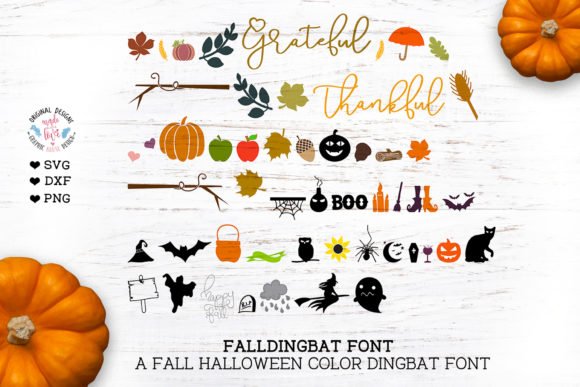
Get Ready to Cast a Spell with Fall Halloween Font
Have you ever stared at a blank canvas, feeling the creative juices flowing, but struggling to bring your ideas to life? That’s where I’ve been lately, trying to come up with the perfect design for our Halloween-themed project. But then, I stumbled upon the perfect solution – Fall Halloween Font.
This incredibly unique and useful dingbats font is a game-changer for designers like us. With its spooky and autumnal vibes, Fall Halloween Font adds an extra layer of depth and personality to our designs. Whether you’re creating a spooky poster, a Halloween-themed social media graphic, or a festive card, this font is sure to make your work stand out.
So, what makes Fall Halloween Font so valuable for designers? Its versatility and ability to evoke a range of emotions, from spooky to playful, make it a must-have in any designer’s toolkit.
Fall Halloween Font Key Features
- Font Style: Script font with a spooky, autumnal theme, perfect for Halloween and fall-themed designs.
- Unique Characteristics: Includes special characters and symbols, such as jack-o’-lanterns, ghosts, and bats, to add a touch of Halloween spirit to designs.
Designer Review: Fall Halloween Font
Overall, I think the Fall Halloween Font has some great elements, but it’s not without its limitations. ✨
- The font’s autumnal and spooky theme is well-executed, capturing the essence of Halloween.
- The use of bold, playful lettering makes it perfect for headlines and titles.
- The variety of weights and styles allows for flexibility in design.
- ⚠️ The font’s readability can be compromised when used in smaller sizes or at longer distances.
- ⚠️ The design may be too kitschy or childish for more sophisticated or elegant designs.
Overall, I would recommend the Fall Halloween Font for projects that require a playful, festive atmosphere, such as party invitations, social media graphics, or children’s content. However, it may not be the best choice for more formal or professional designs.
Tips for Getting the Most Out of the “Fall Halloween Font”
Use the font in conjunction with other Halloween-themed graphics and images to create a cohesive and spooky atmosphere.
Experiment with different font sizes, colors, and styles to create a unique and eye-catching design.
Use the font to create a sense of nostalgia and tradition, perfect for Halloween-themed designs and decorations.
Halloween invitations and party decorations
Halloween-themed social media graphics and posts
Halloween crafts and DIY projects
Spooky and eerie designs for horror movies and TV shows